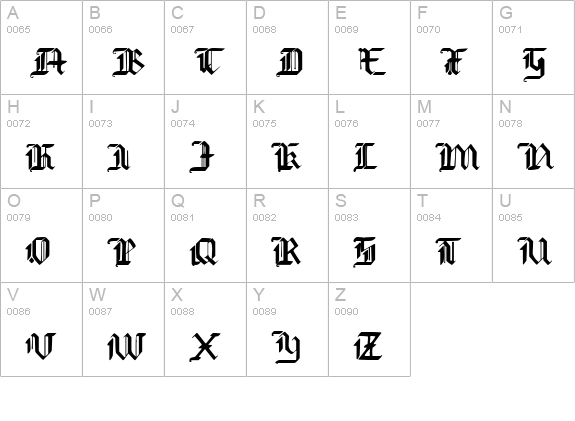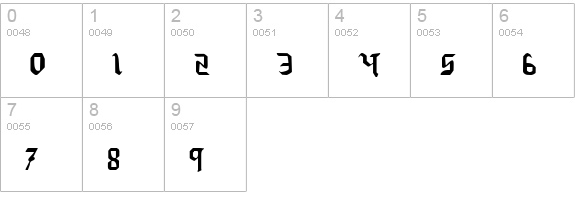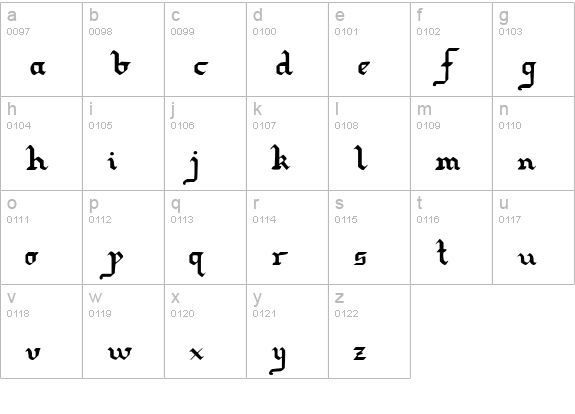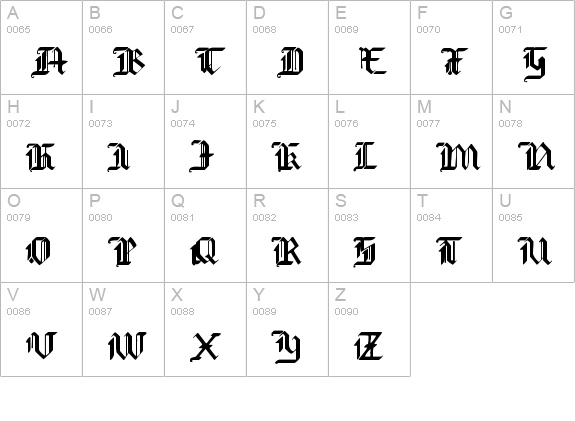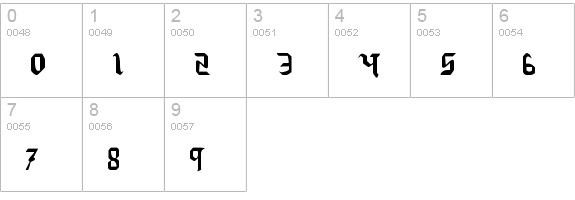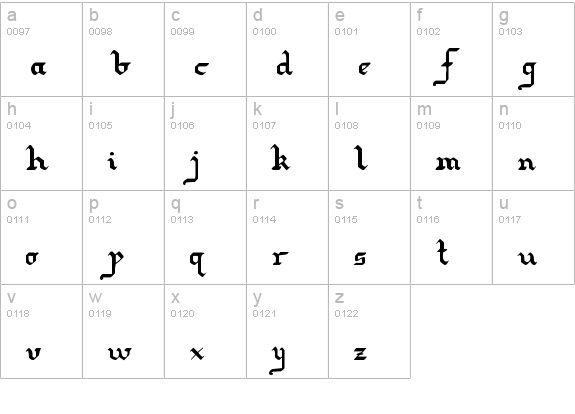
Introducing Redcoat font, a sleek and stylish typeface that exudes elegance and sophistication. With its clean lines and classic design, Redcoat is perfect for adding a touch of refinement to any project. Whether you're creating invitations, branding materials, or any other design work, this versatile font will elevate your work to the next level. The best part? Redcoat is available for free download at FontsMarket.com. This means that you can add this stunning font to your collection without breaking the bank. Don't miss out on the opportunity to enhance your designs with the timeless beauty of Redcoat font. Download it today and start creating with style and flair.